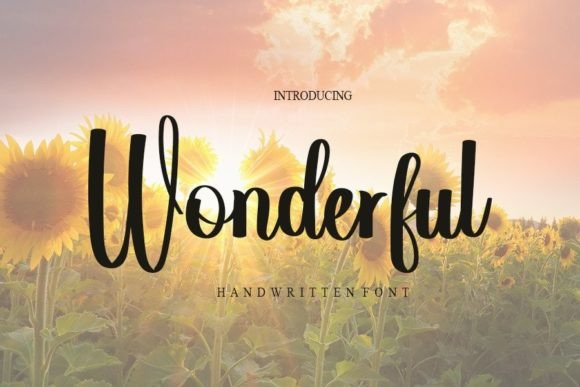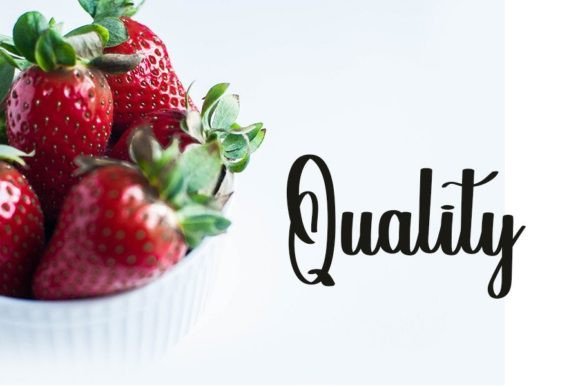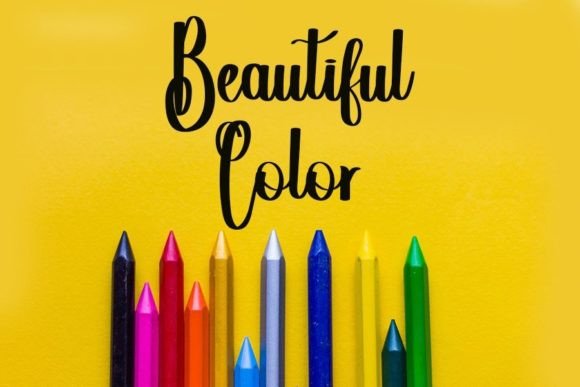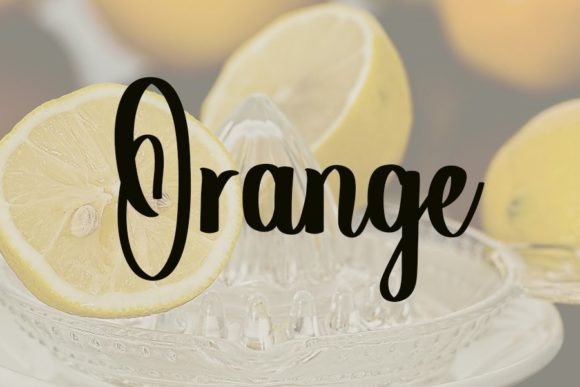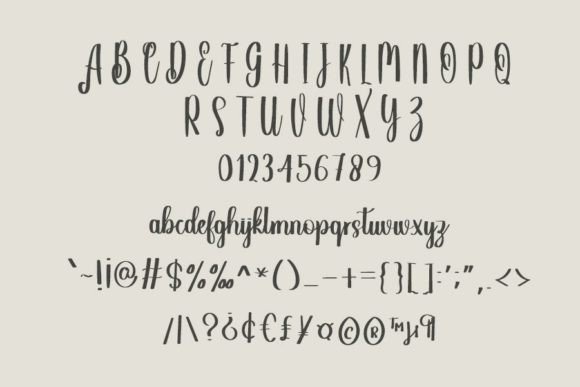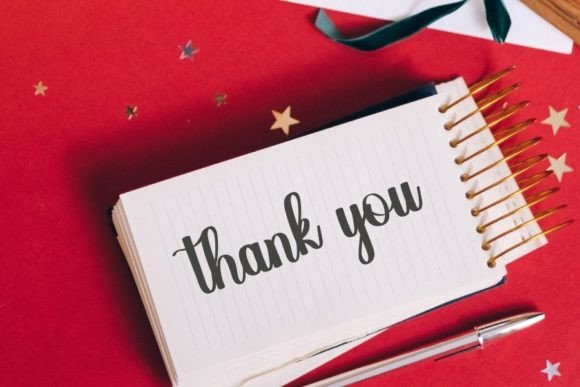
Wonderful Font
About Wonderful Font
Wonderful is a friendly handwritten font that has been meticulously crafted to become a beloved choice for designers. It strikes a balance between maintaining its classy calligraphic influences and exuding a contemporary and fresh vibe. When incorporated into your creative projects, Wonderful elevates them, making them truly outstanding.
The font’s friendly and approachable nature adds a warm and welcoming touch to your text, making it suitable for a wide range of applications. Whether you’re working on greeting cards, social media graphics, branding materials, invitations, or any other creative endeavor, Wonderful’s versatility shines through, enhancing the overall visual appeal of your designs.
Wonderful’s carefully designed letterforms showcase a seamless blend of elegance and modernity. Its handwritten charm exudes authenticity, making your text appear as if it was penned with care and precision. This authenticity creates a personal connection with your audience, making your messages more relatable and engaging.
Incorporating Wonderful into your creative projects allows you to infuse them with a sense of warmth and sophistication. Its friendly handwritten style adds a human touch, making your designs approachable and memorable. Whether you’re aiming for a casual or elegant look, Wonderful adapts to your needs, making it a versatile choice for designers seeking a font that stands out with its friendly and contemporary appeal.
Embrace the charm of Wonderful, and let it become a staple in your design toolkit. Its friendly handwritten design adds a touch of personality and authenticity to your projects, making them shine with creativity and warmth. Whether you’re crafting personal invitations or professional branding materials, Wonderful ensures that your creative endeavors leave a lasting impression.